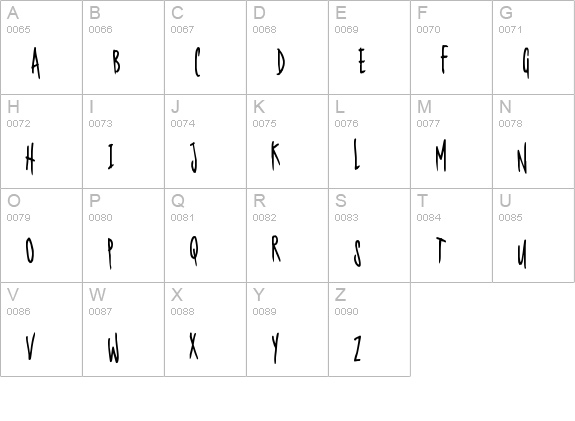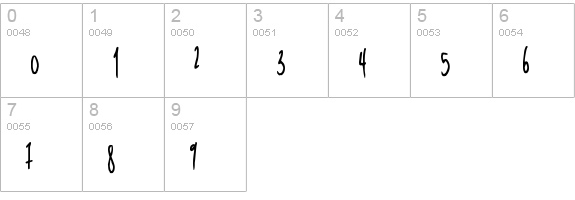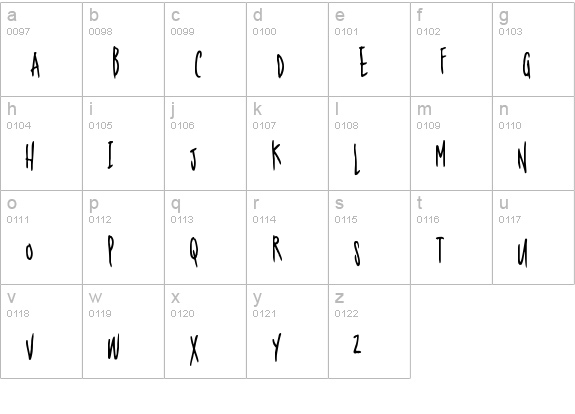
Nerdproof Font Details
Introducing Nerdproof font, the ultimate typeface for all your geeky design needs! This quirky and playful font is perfect for projects that require a touch of fun and sophistication. With its unique character and bold design, Nerdproof will surely make your designs stand out from the crowd. But the best part? Nerdproof font is absolutely free to download! Yes, you read that right. You can easily get your hands on this fantastic font at FontsMarket.com without spending a dime. So why wait? Add Nerdproof font to your collection today and let your creativity soar to new heights!